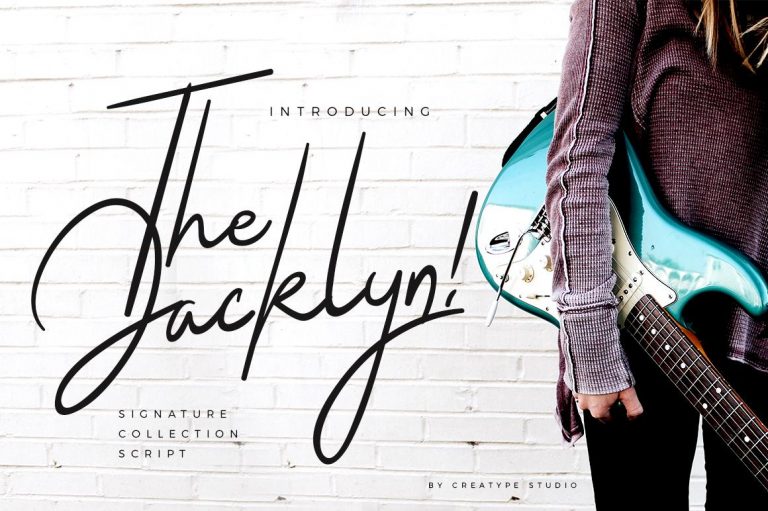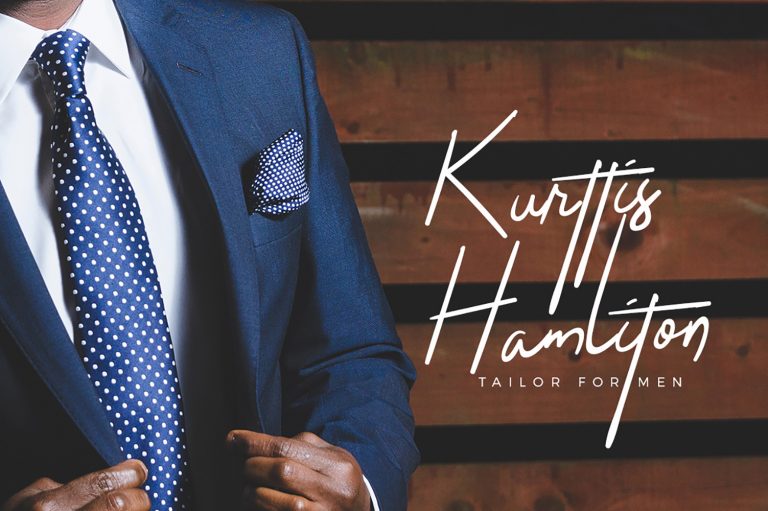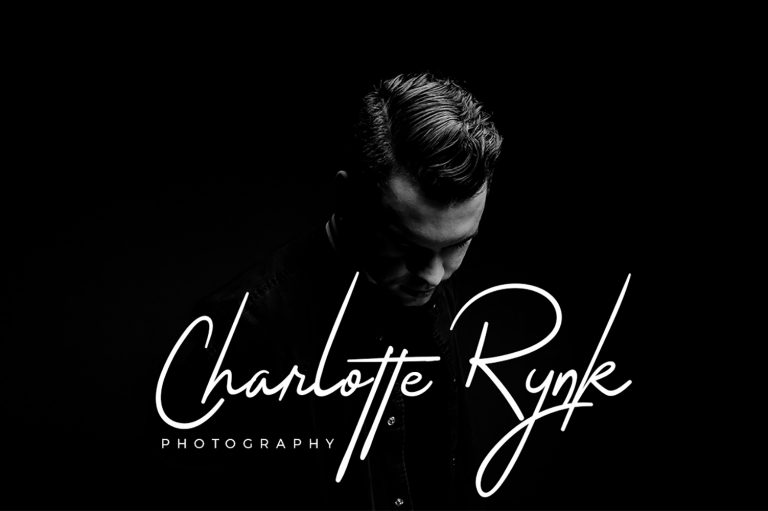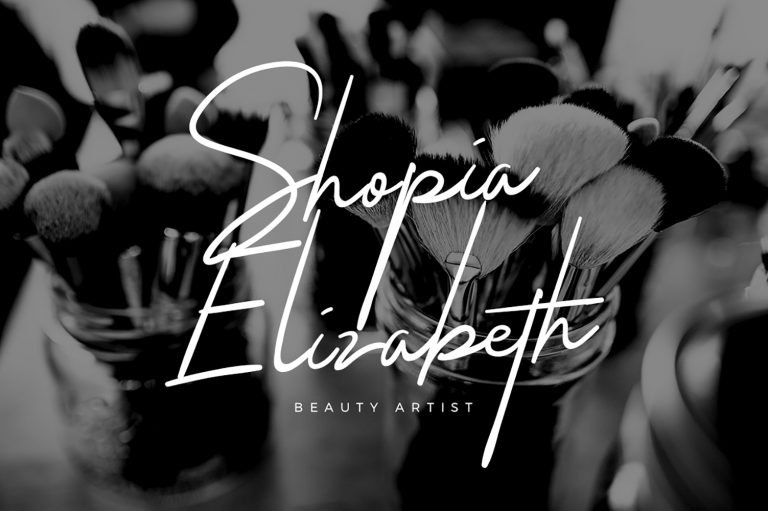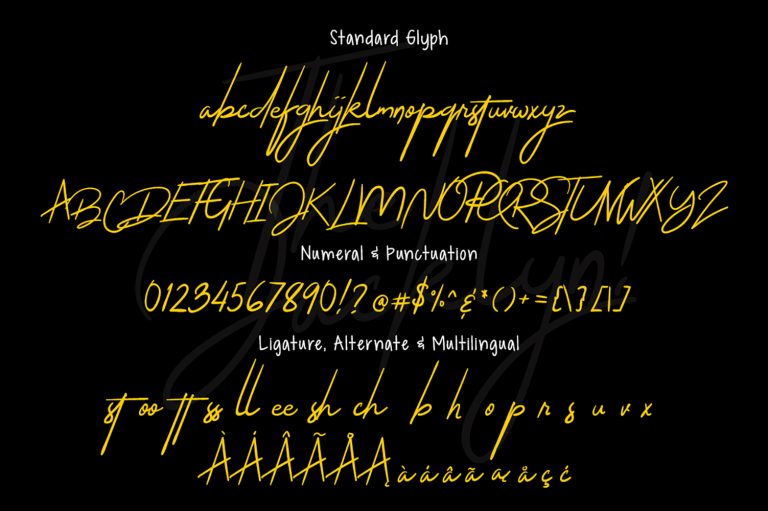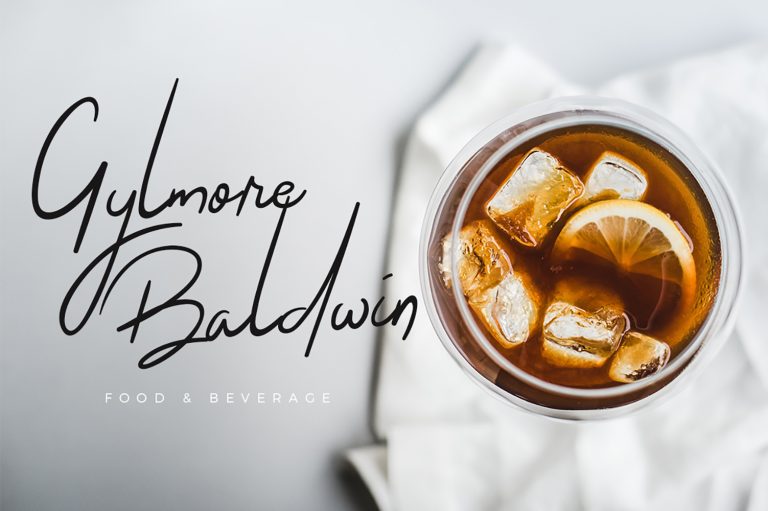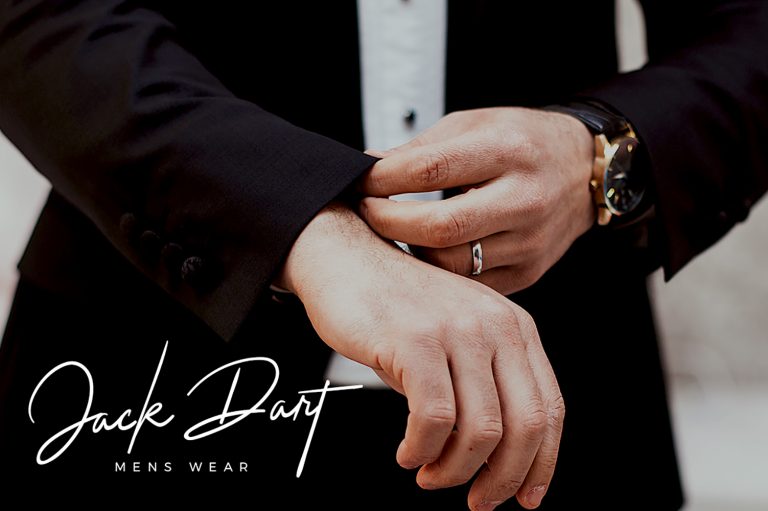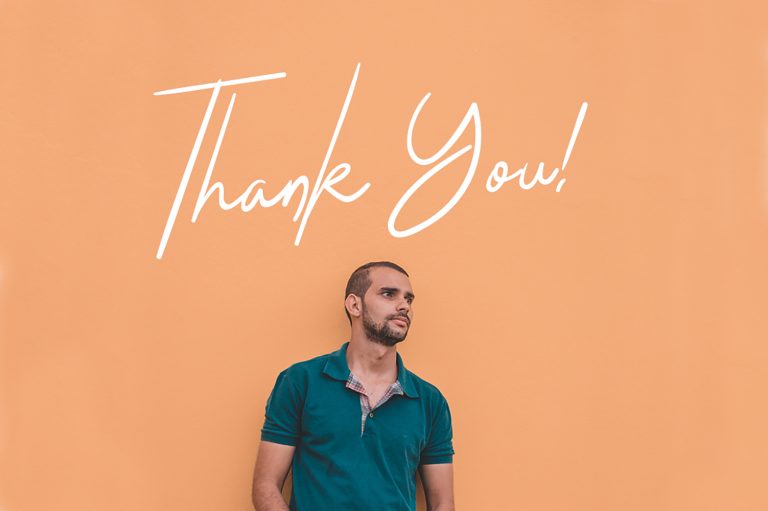
The Jacklyn signature style script is modern and sophisticated styling font which perfect for branding, logo, photography and signature. It is so elegant, classy, strong and beautiful.
- Ligature & Stylistic alternate
The Jacklyn Signature